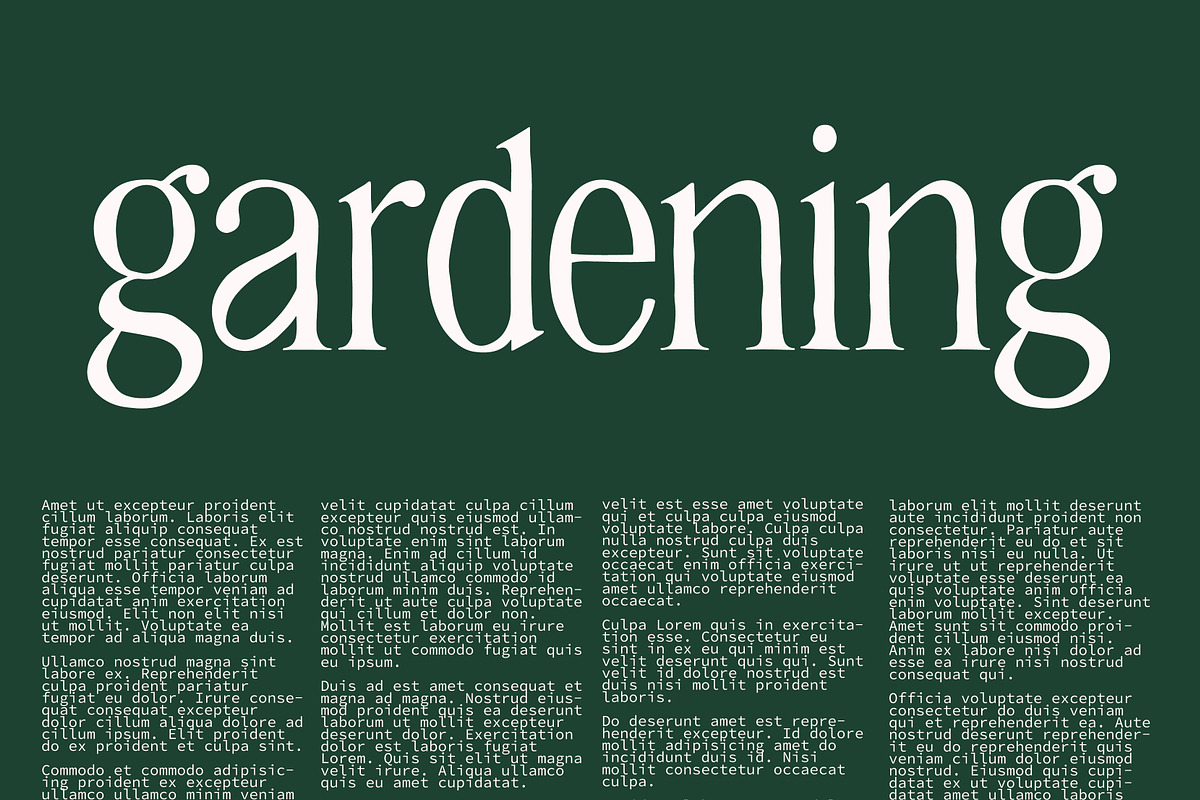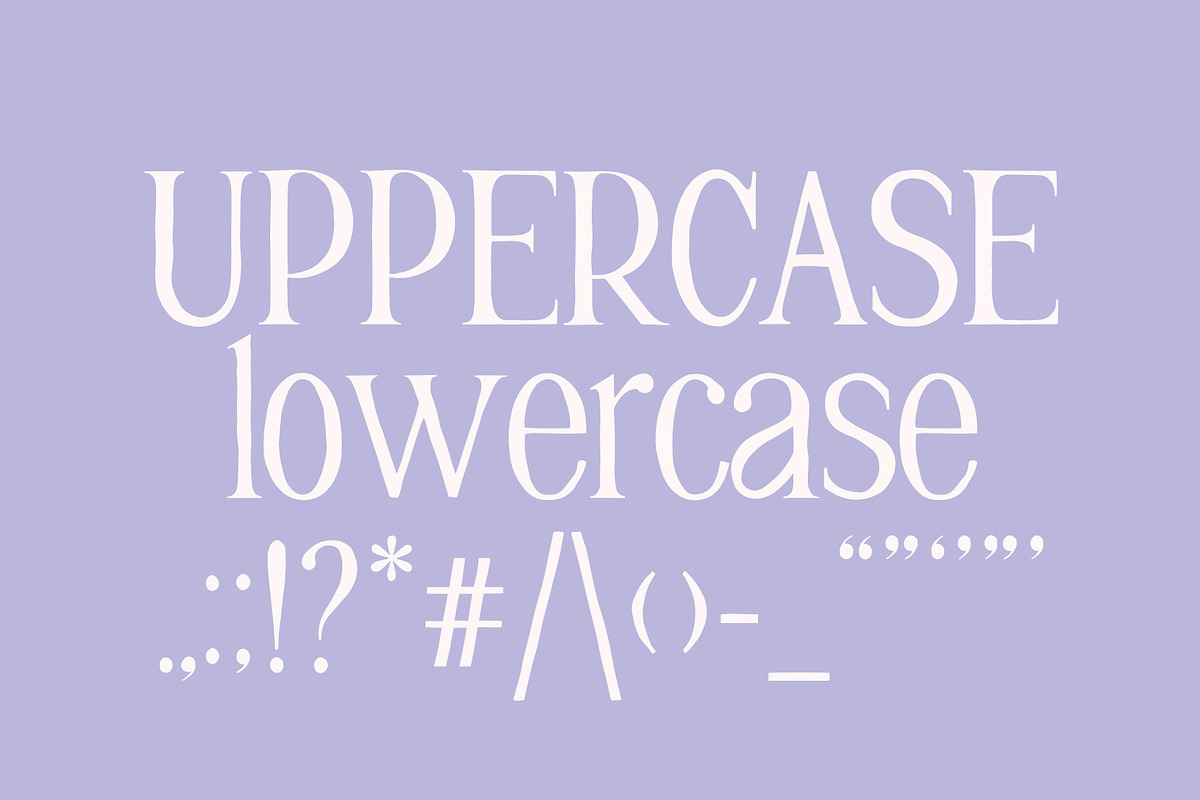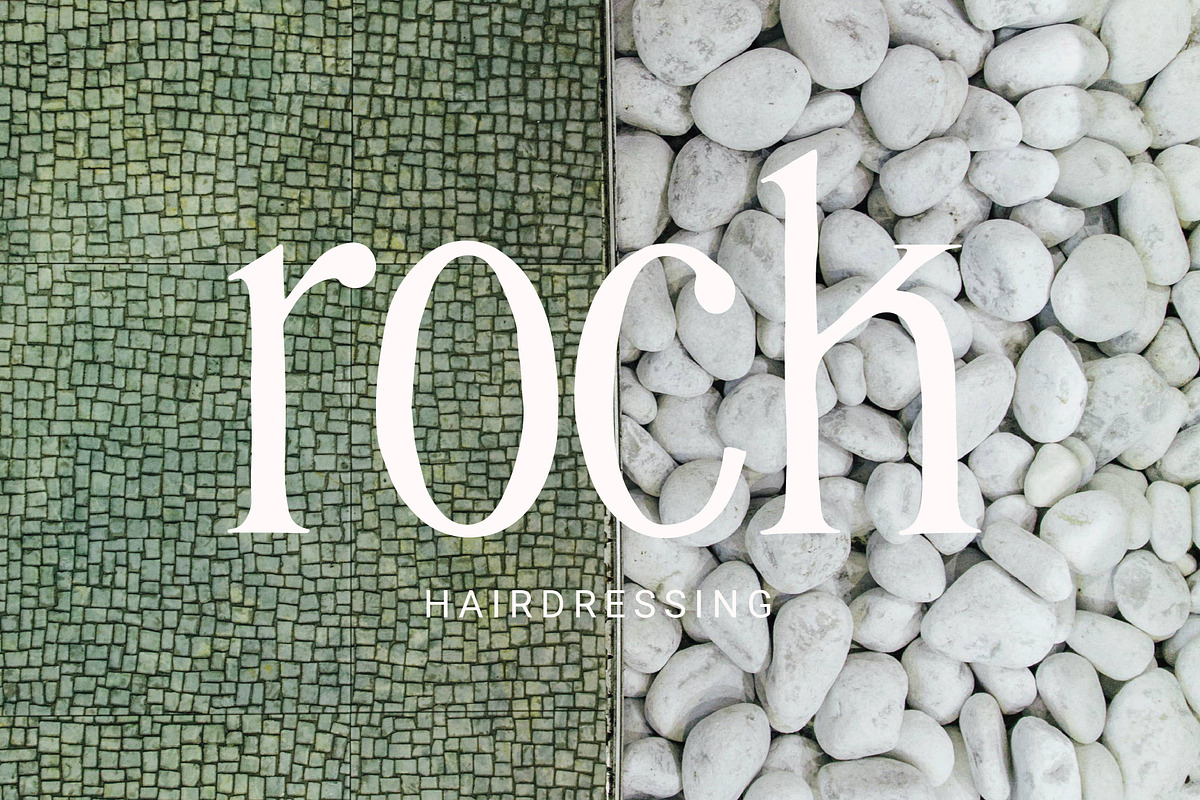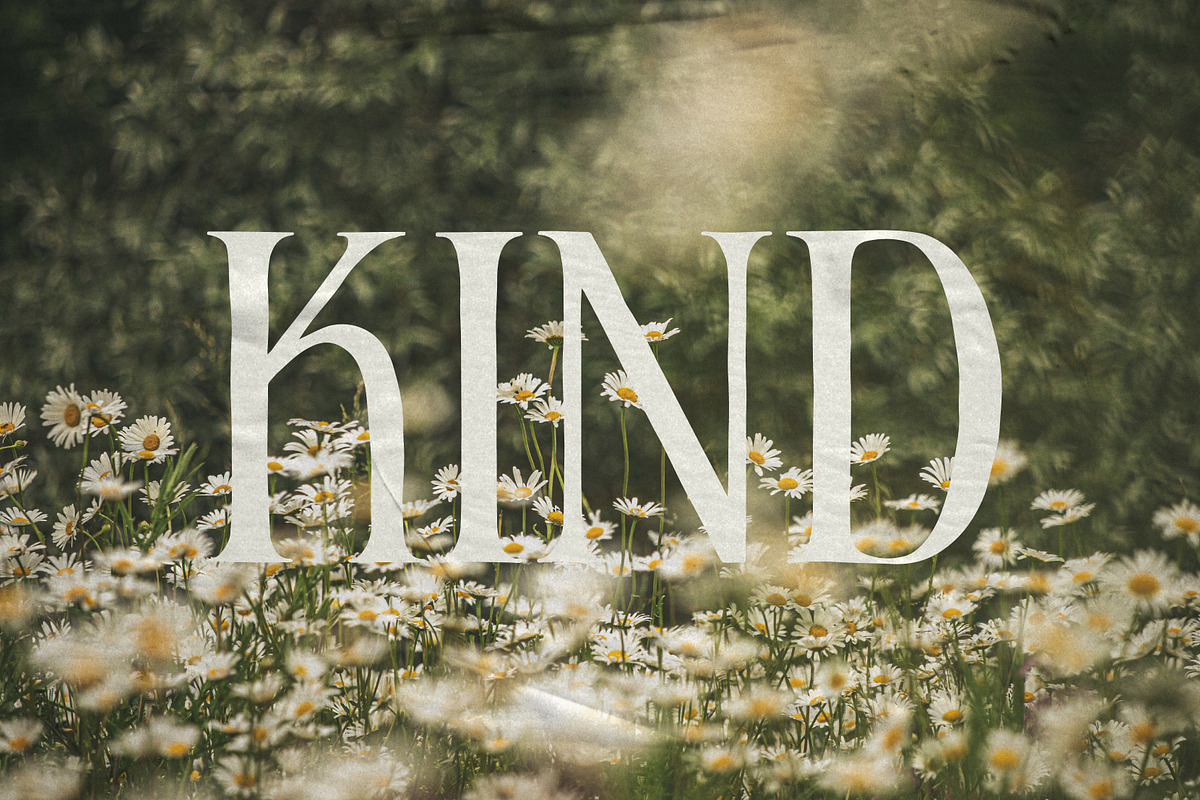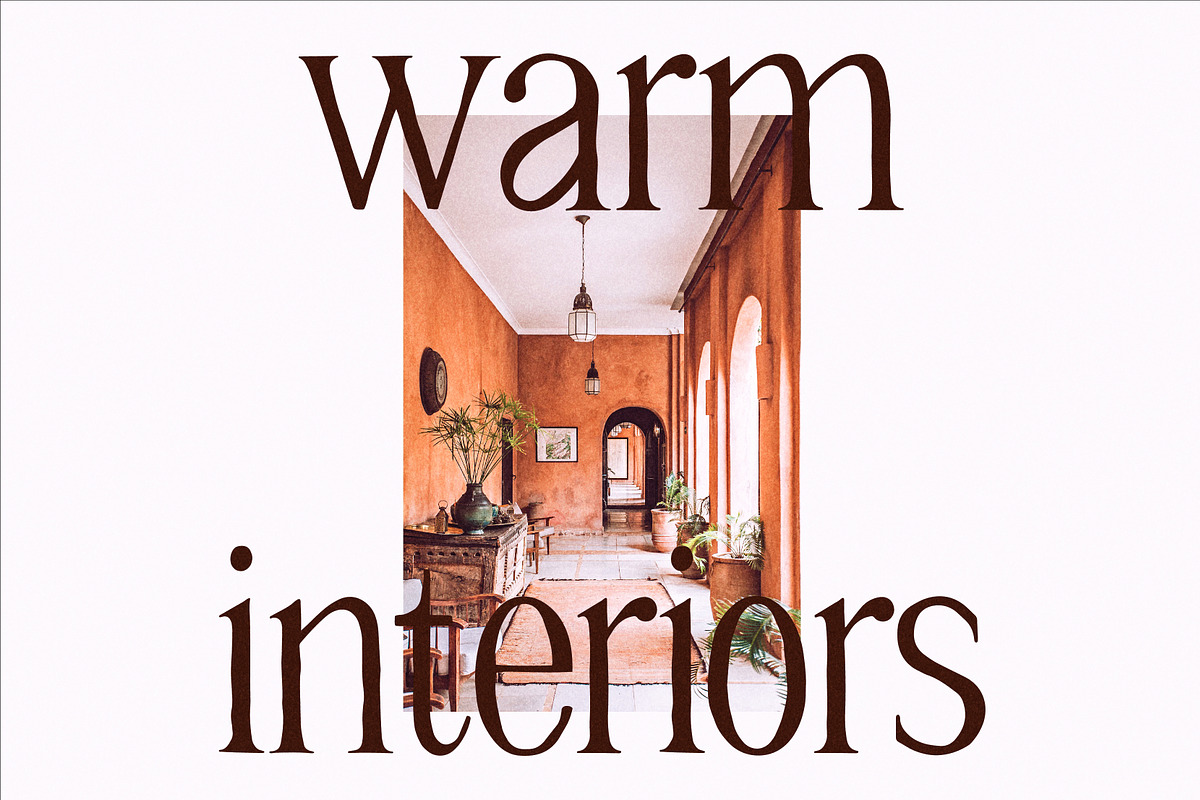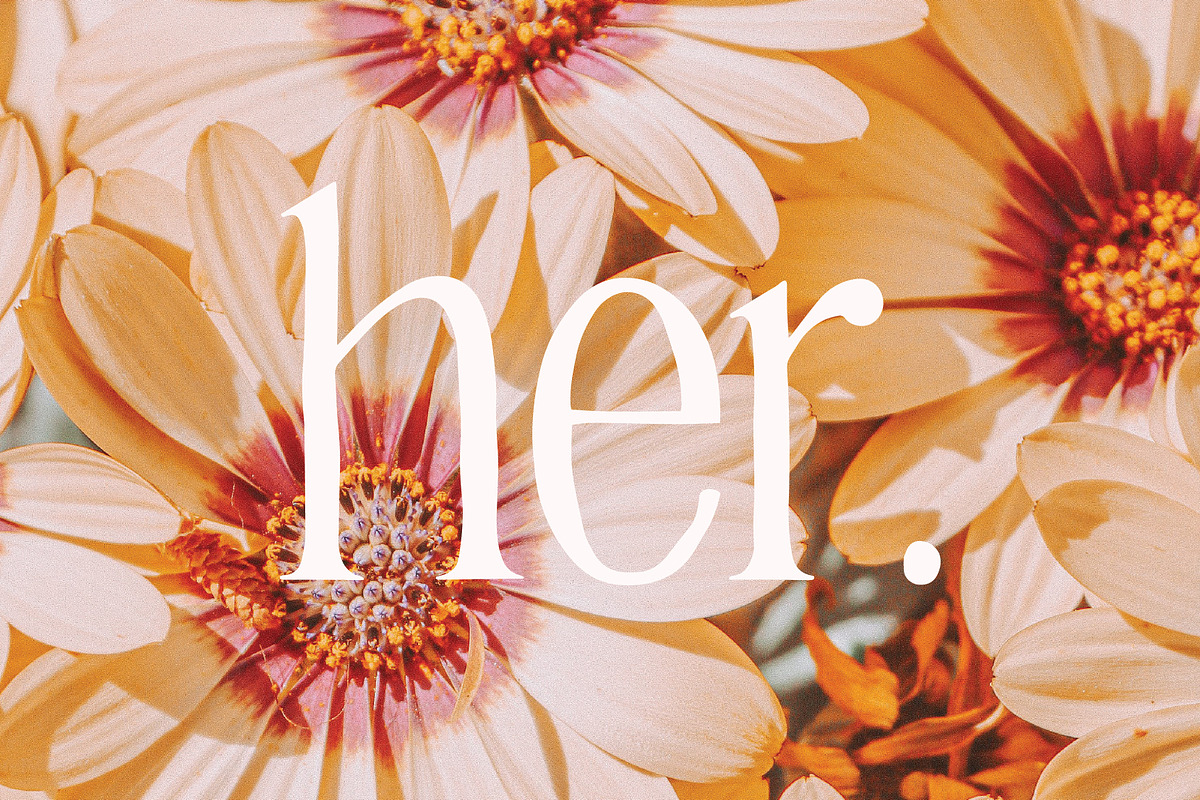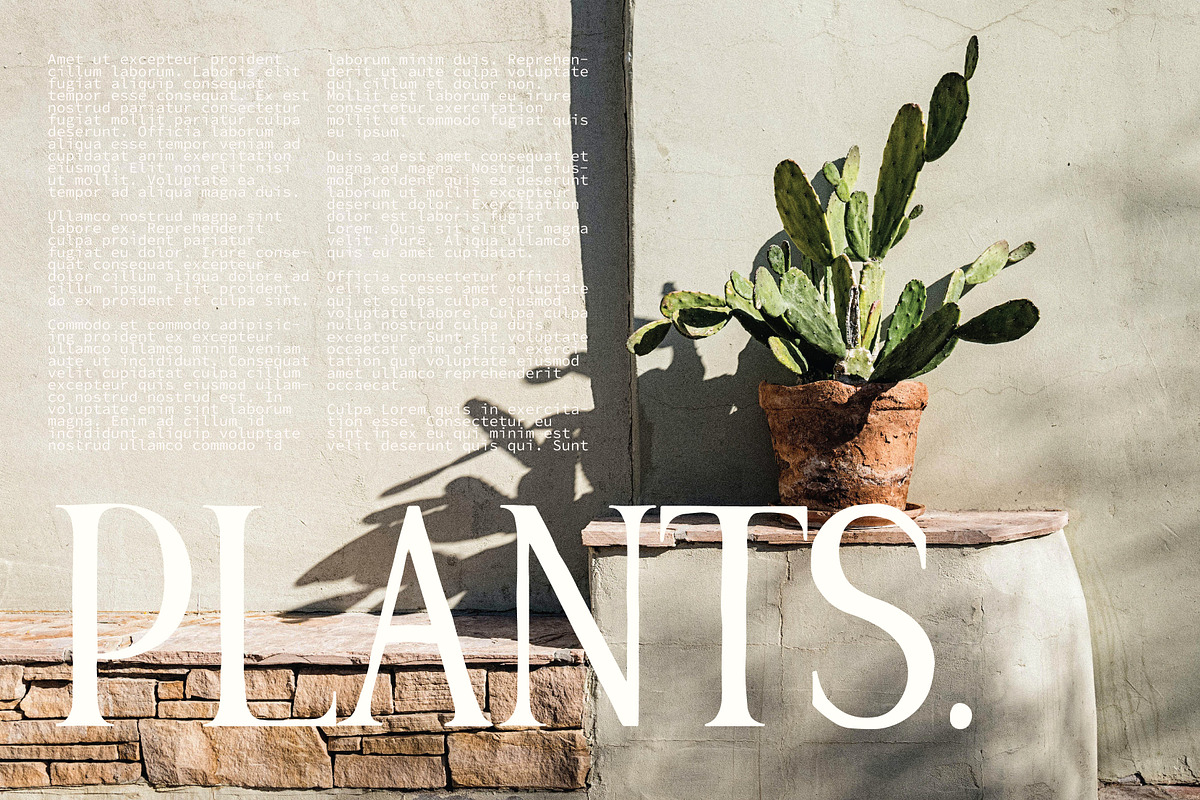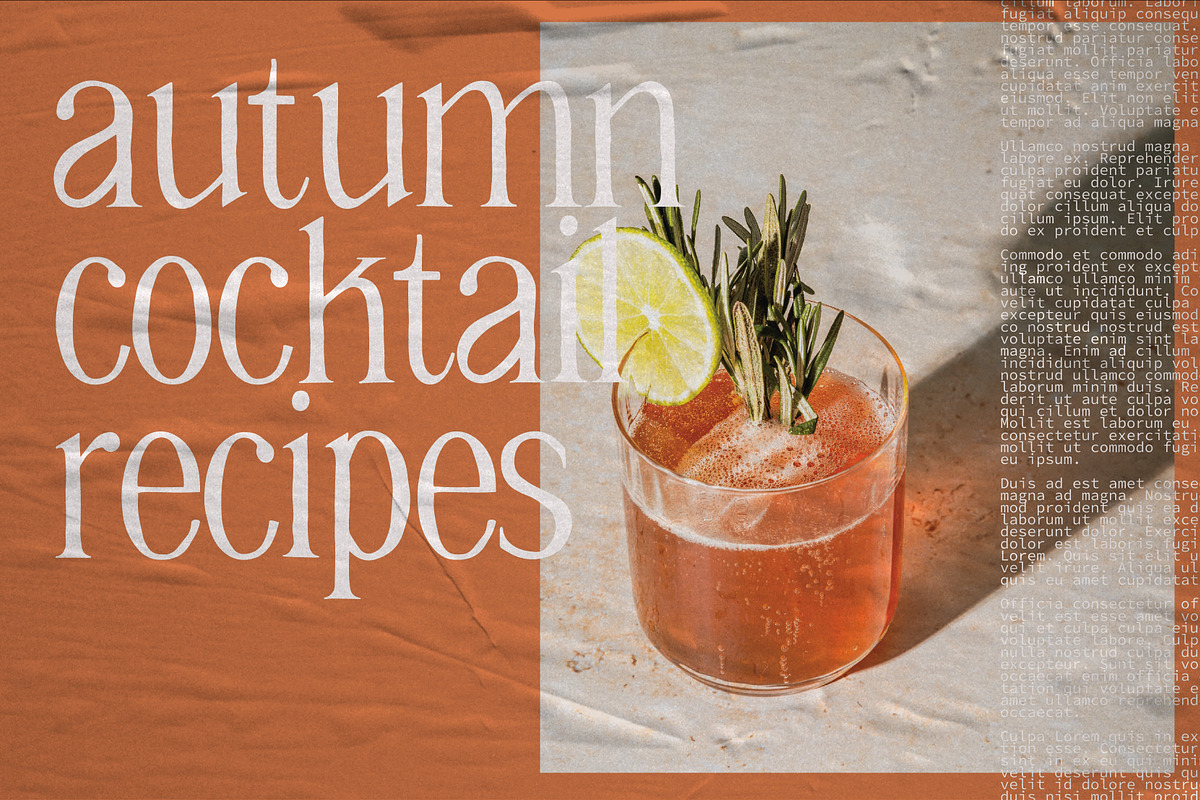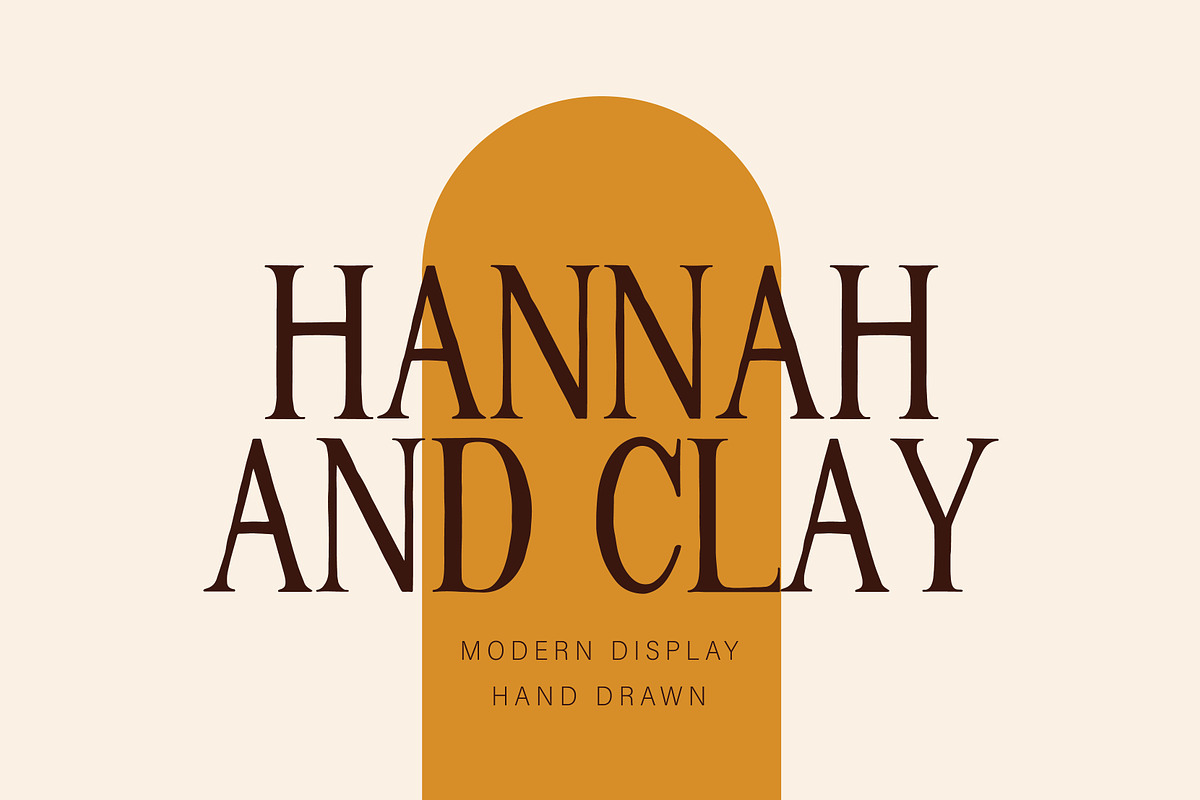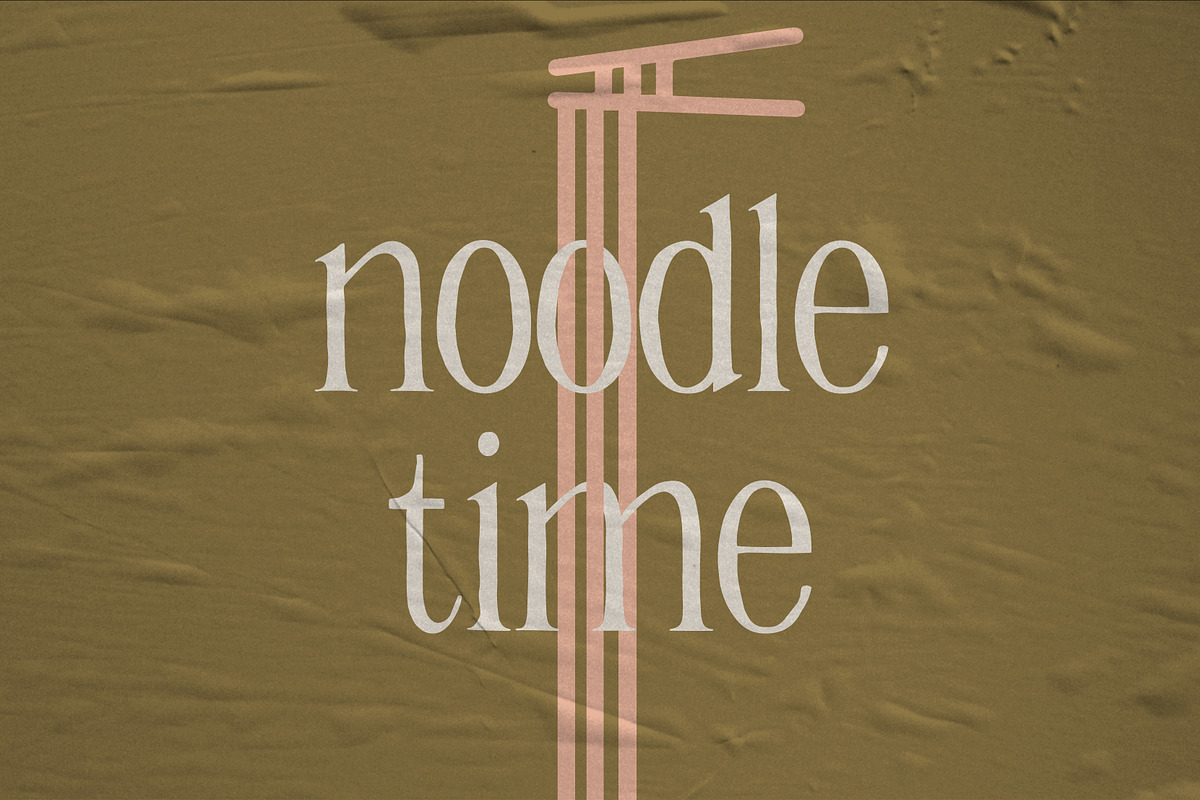
HANNAH & CLAY | handwritten serif
HANNAH & CLAY | handwritten serif font
After the love that MILK & CLAY received I thought I would make a serif version for all you serif typeface lovers out there. It is the handwritten version of one of my favourite fonts 'hannah' (link below). I absolutely love how this turned out and the unpolished warm feeling this font has. It feels very high end, but still approachable, inviting and grounded because of its soft edges and human feel. I hope you love it as much as I do xx
⋒ perfect for ⋒
- magazines
- posters
- natural brands
- homeware brands
- handmade products
- garden brands
- branding
- logos